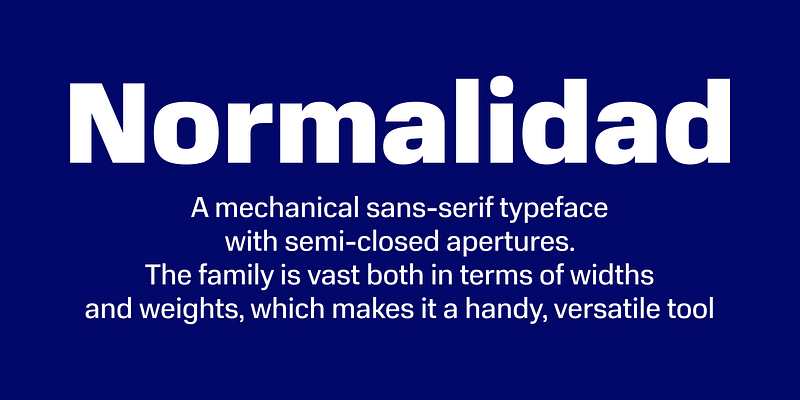
Normalidad Font Free Download is a clean, modern sans-serif typeface designed for clarity, flexibility, and functionality across digital and print platforms. With its minimalist geometric structure and neutral tone, Normalidad is perfect for branding, editorial layouts, UI/UX design, signage, and corporate communications where a crisp, professional look is essential.
Normalidad Font Free Download features a wide range of weights and styles, including italics, allowing for versatile typographic hierarchy. Its open counters, balanced letterforms, and even spacing contribute to excellent legibility, making it ideal for both body text and display use.
Whether you're working on a mobile app interface, a data-driven dashboard, or a minimalist brand identity, Normalidad adapts seamlessly—delivering visual harmony and straightforward design without distraction.
Neutral, efficient, and highly legible—Normalidad is a go-to typeface for modern designers who prioritize simplicity, readability, and adaptability in every project.